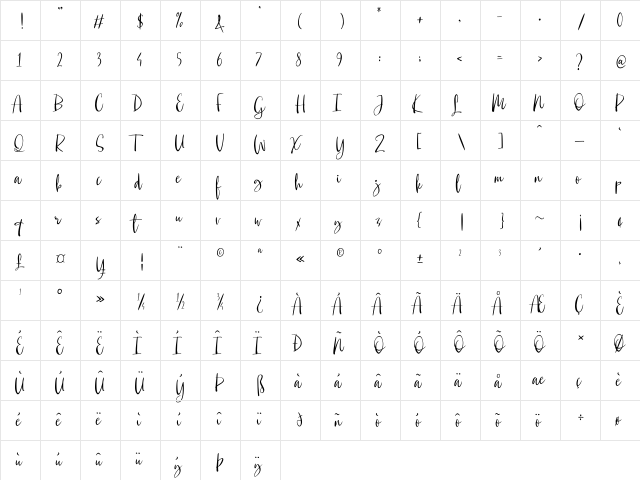
Mauritania Regular
Regular · Fauzi  ·
Foundry Fauzi
Design Context for Mauritania Typeface
Mauritania is a composed and adaptable typeface that performs quietly and consistently across a wide range of design contexts.